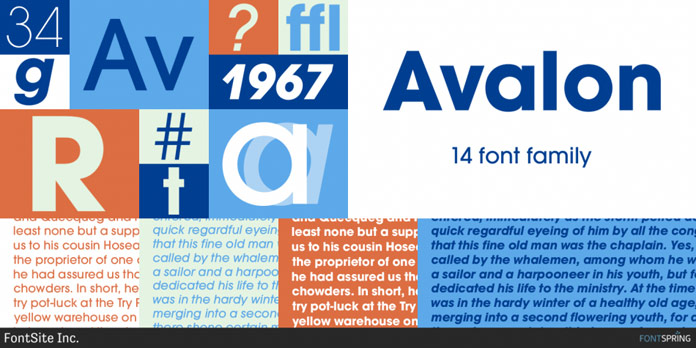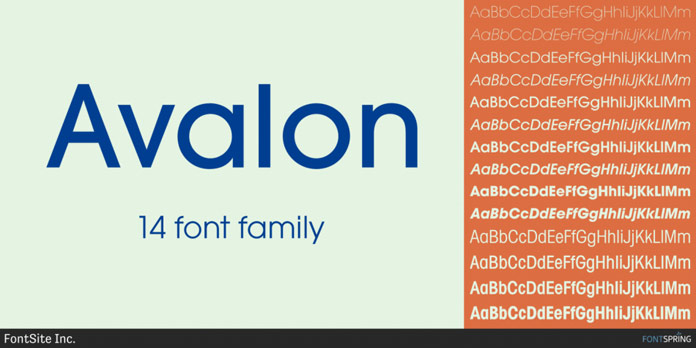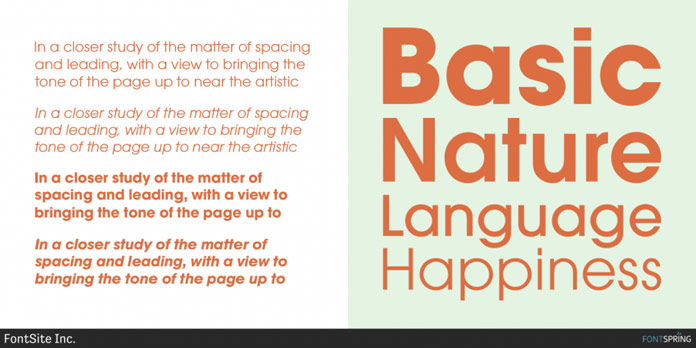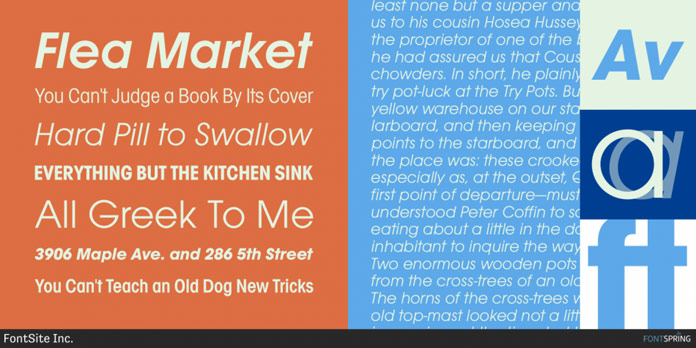
The Avalon font family, a sans serif with 14 styles from FontSite Inc.
Already published in 2010 by foundry FontSite Inc, Avalon is a modern sans serif font family that comes in 14 styles comprising 5 weights, matching Italics, and 4 condensed versions. While the condensed styles were mainly designed for display use, Avalon’s normal widths are a great choice for long texts. Equipped with 11 OpenType features such as stylistic alternates and standard ligatures, the typeface was made for professional needs. Furthermore, the Avalon font family supports all common Latin based languages. The typeface fits very well for multiple applications such as editorial work and branding projects. For additional information on all options and buying choices, please check out the following link.